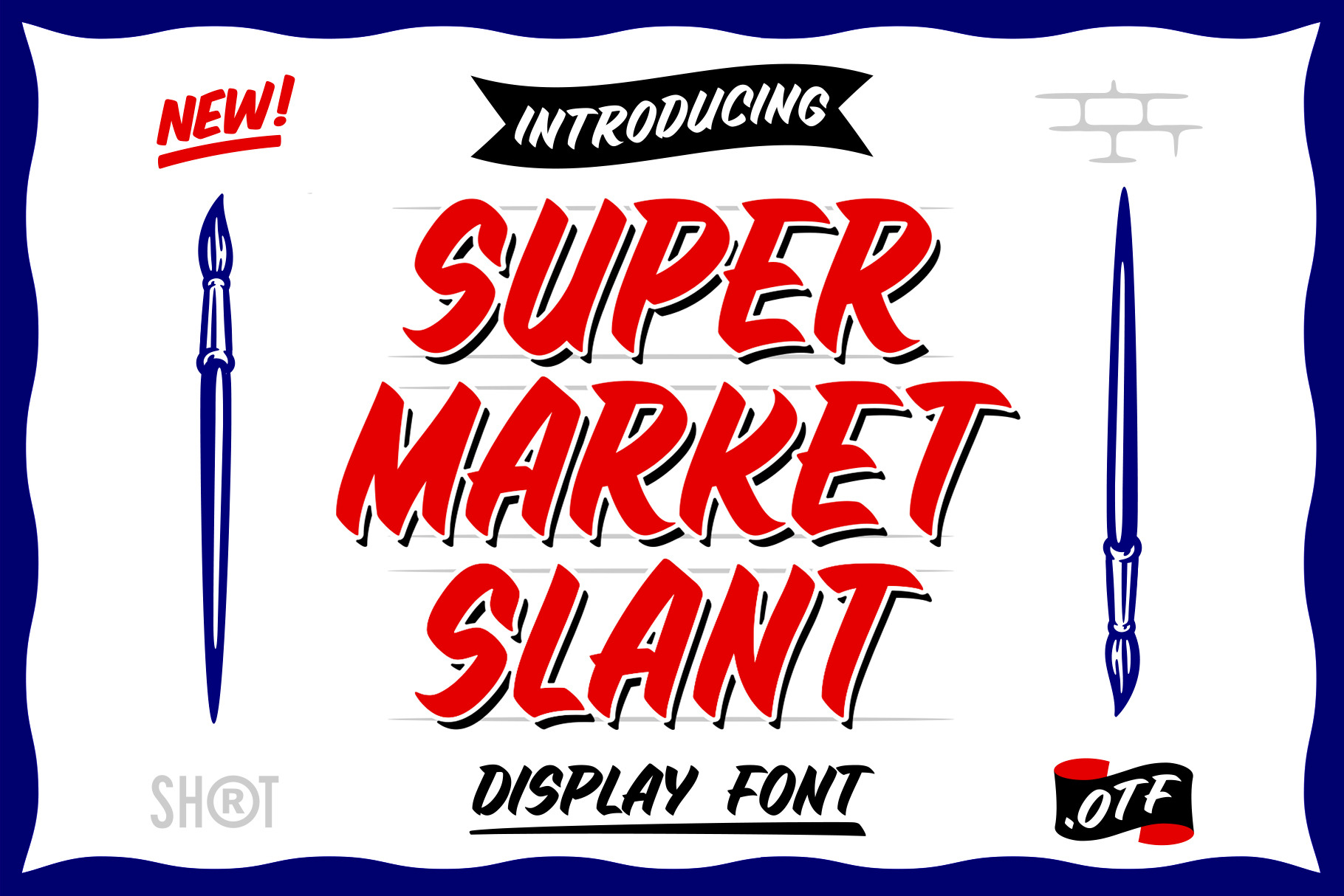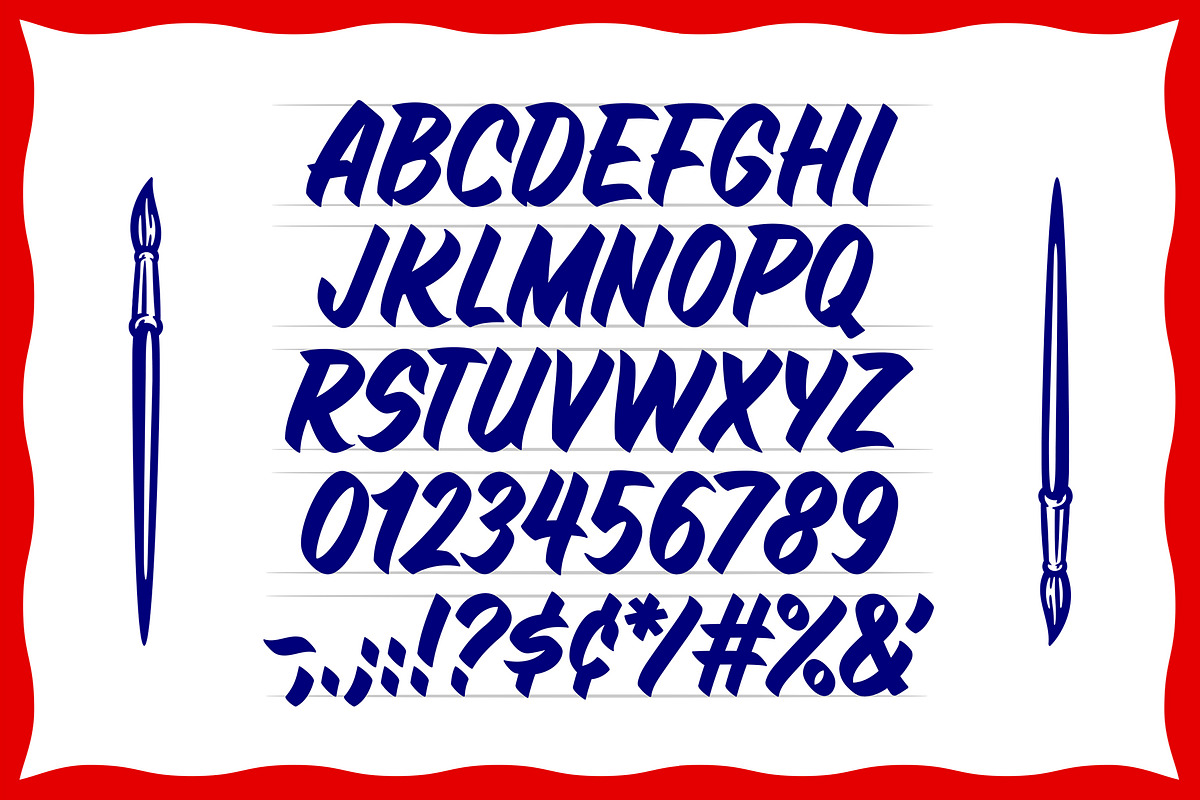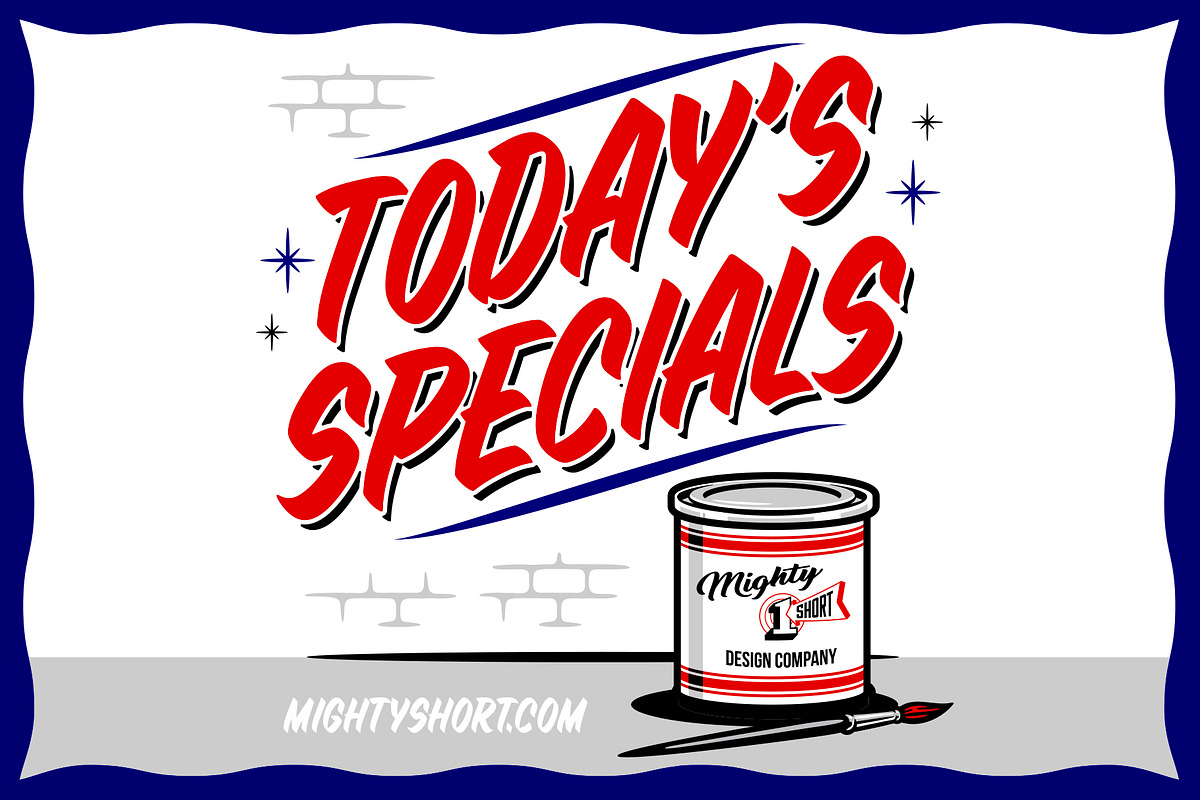
Super Market Slant Font
Super Market Slant is a font inspired by Signs Painting, these pretty hand painted letters that you can see on buildings, billboards and signboards. This handcrafted slant casual font will bring a sweet retro touch to your artworks!
This font comes with Uppercase Letters, Numbers and some punctuation.